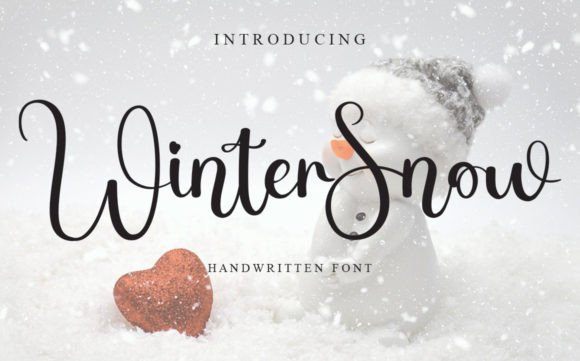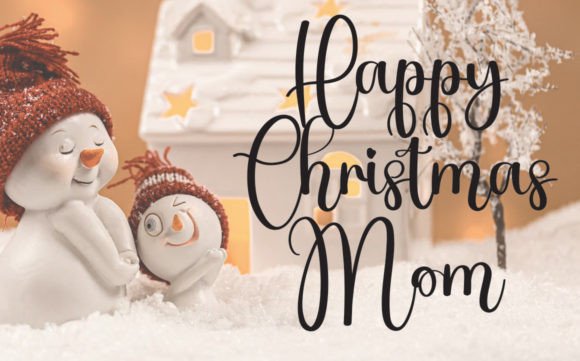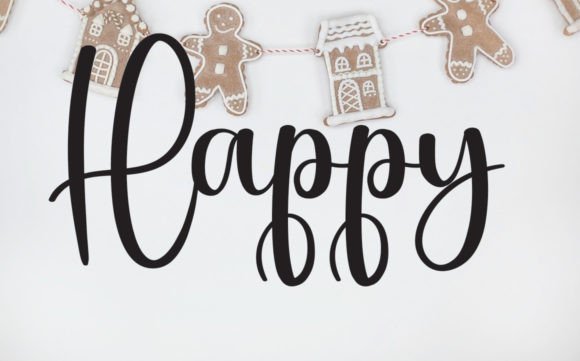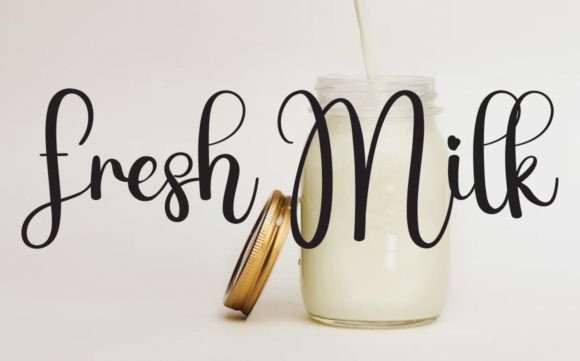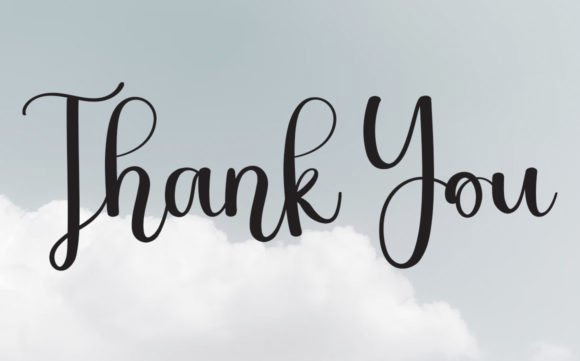
Winter Snow Font
The Winter Snow Font Download is a sweet and delicate handwritten script designed to bring romance and elegance to any creative project. With its dainty and joyful strokes, this font captures a light and graceful personality, making it an ideal choice for personal and professional work. Whether you are designing wedding invitations, cards, or digital designs, Winter Snow adds a soft handwritten charm that stands out beautifully.
A Delicate Script with Romantic Energy
The Winter Snow script font combines refined handwritten curves with balance and clarity. As a result, it feels stylish, timeless, and versatile. Furthermore, it transitions smoothly from stationery to digital projects, which makes it a dependable choice for hobbyists and professional designers alike.
Handwritten fonts always bring emotion and sincerity. The Winter Snow Font is perfect for wedding invitations, birthday notes, thank you cards, and seasonal greetings. Because of its dainty handwritten character, each project feels heartfelt and polished. In addition, it ensures that your stationery designs leave a lasting impression.
Branding and Logo Design with Winter Snow Font
Typography defines a brand’s personality. The Winter Snow handwritten font works wonderfully for boutique logos, product packaging, and branding campaigns. Its elegant yet friendly handwritten look communicates warmth and creativity. Therefore, it is especially effective for fashion, lifestyle, and wedding-related industries.
Posters, Titles, and Editorial Designs
The Winter Snow Font Download also shines in posters, magazines, banners, and book covers. It maintains clarity at any size while adding a handwritten romantic touch. Consequently, it is a great option for designers seeking a mix of elegance and readability.
In today’s online world, fonts must look appealing across platforms. The Winter Snow typeface integrates seamlessly into Instagram graphics, YouTube thumbnails, Pinterest posts, and blogs. Because of its delicate handwritten energy, it ensures digital projects look graceful and modern.
Why Designers Choose Winter Snow Typeface
Designers appreciate fonts that balance beauty with usability. The Winter Snow handwritten script keeps its romantic charm while remaining legible and versatile. This makes it suitable for professionals as well as hobbyists. Moreover, its timeless look ensures it stays relevant in future creative projects.
Add Romantic Charm to Your Projects Today